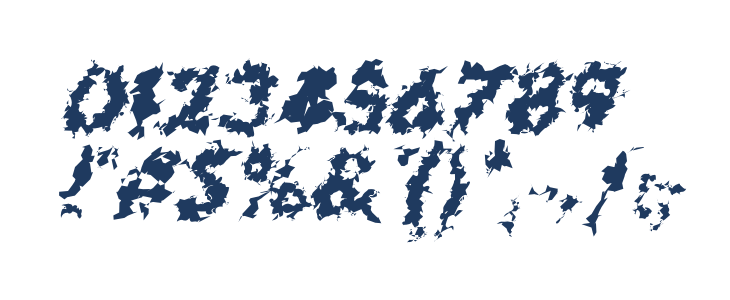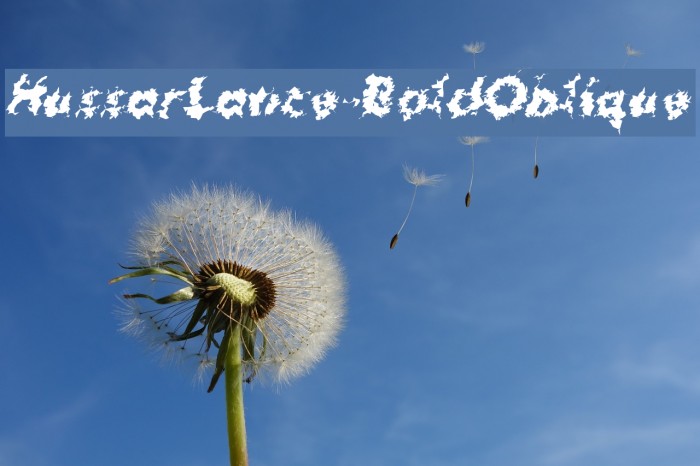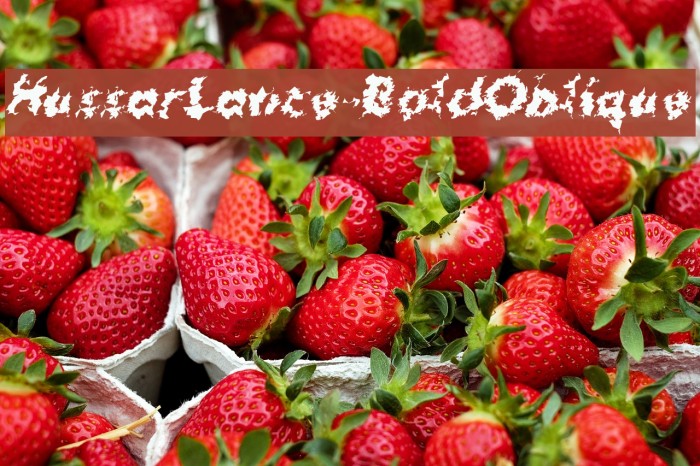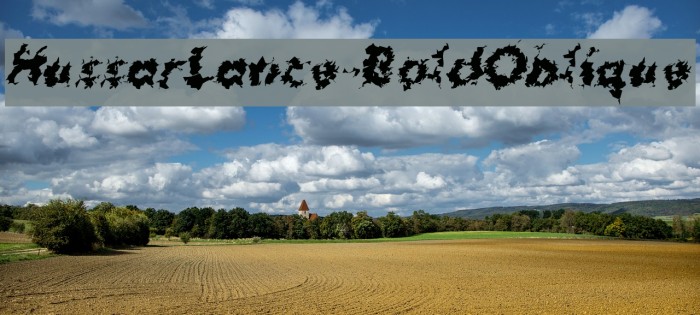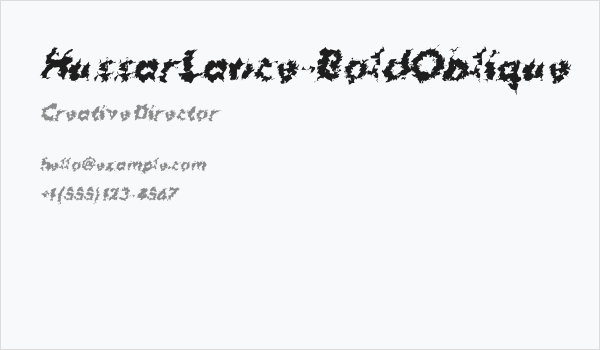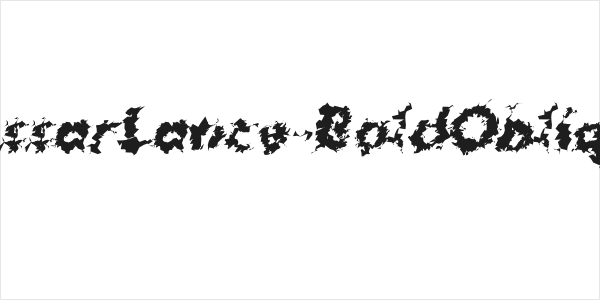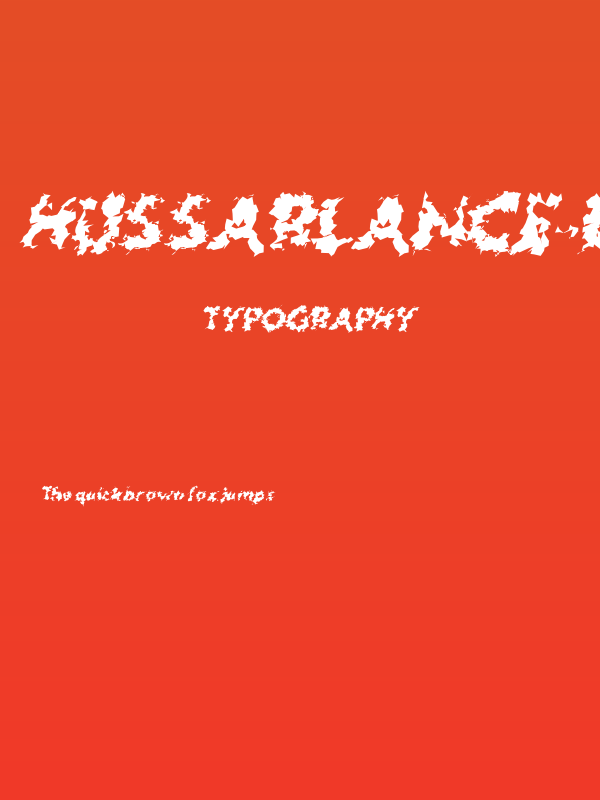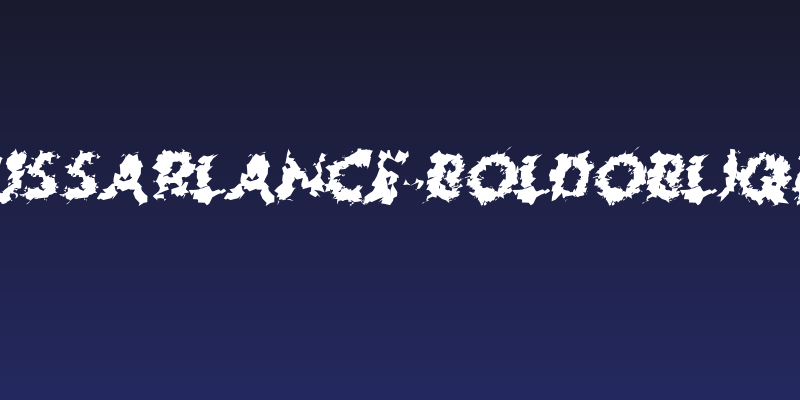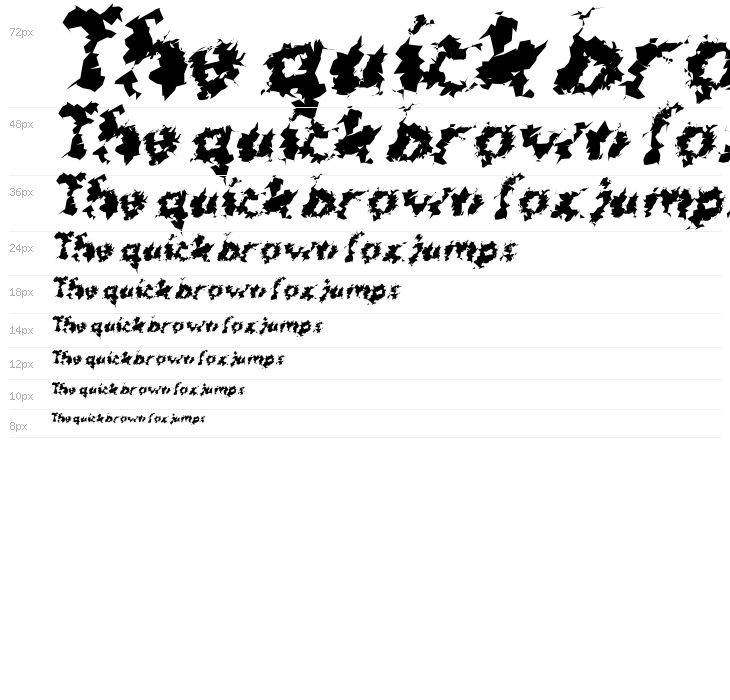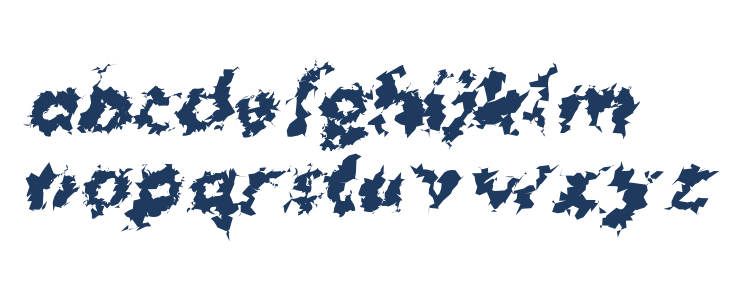
HussarLance-BoldOblique Font
HussarLance-BoldOblique Description
This font features a bold and oblique style with a highly decorative and distressed appearance. The characters are designed with jagged edges and irregular shapes, giving them a chaotic and edgy look. The uppercase and lowercase letters maintain a consistent style, with each character appearing as if it is torn or shattered. The numbers and special characters follow the same design principles, ensuring a cohesive look across all glyphs. This font's unique style makes it stand out, offering a dramatic and intense visual impact.
| Proposed Projects | Ideal for projects requiring a dramatic and intense aesthetic, such as horror-themed posters, album covers, or edgy branding materials. |